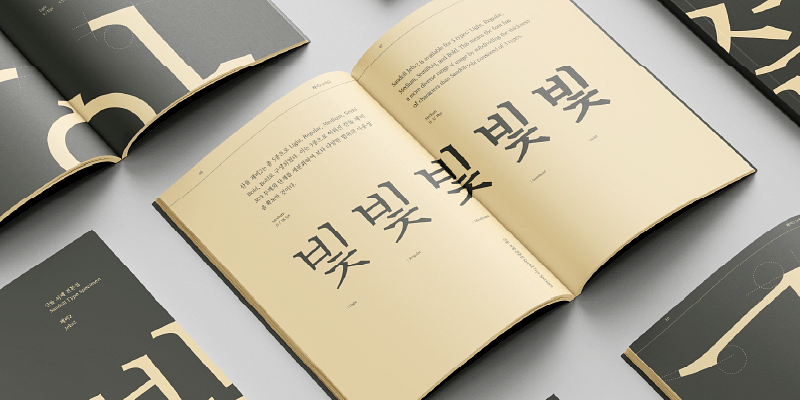
Sandoll Jebi2 is the upgraded version of Jebi with some edited details. It’s become more legible and the quality has been improved.
Reinterpreting the curves and straight lines of Myeongjo in Korean manner, the sharp corners, roof characters, and others are displayed in a unique way unlike any other fonts.